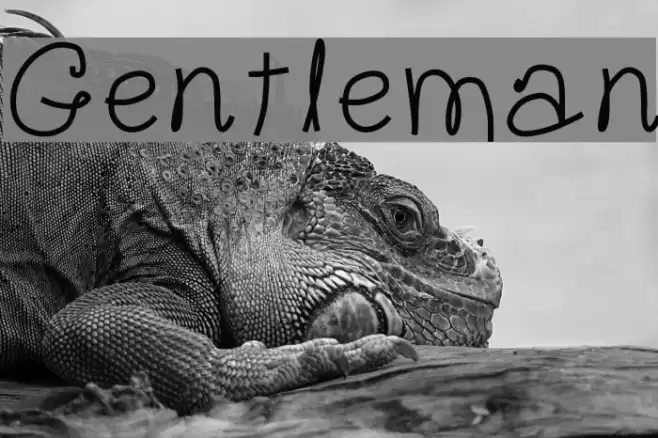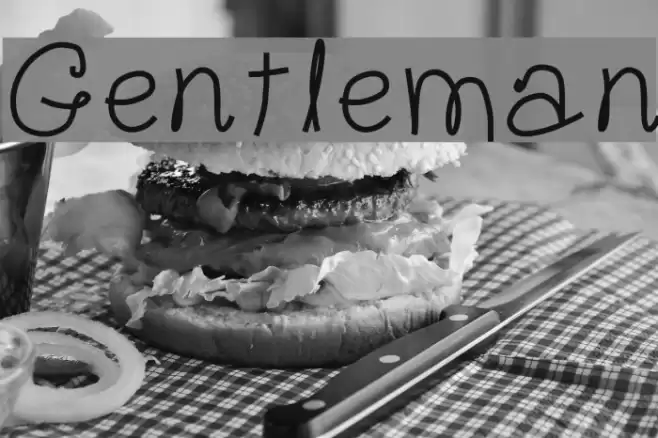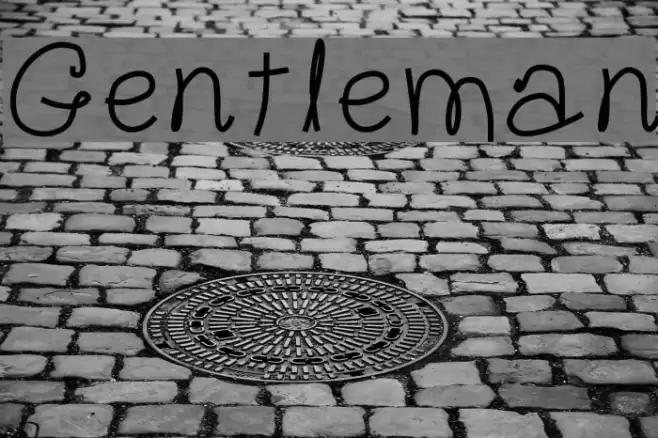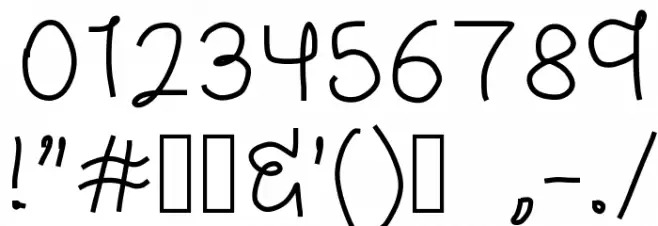
Gentleman Font
Gentleman Description
This playful and whimsical font features a hand-drawn style with unique, quirky elements. Each character is distinct, with some letters incorporating spiral motifs, adding a sense of fun and creativity. The strokes are uneven, giving it a casual, informal appearance. The font maintains a consistent flow, with a slight tilt in some characters, enhancing its dynamic feel. The numbers and special characters follow the same playful design, making it suitable for projects that require a touch of personality and charm.
A whimsical, hand-drawn font with playful, quirky elements and spiral motifs from Uncategorized fonts.
- Proposed Projects: Ideal for children's books, creative posters, playful branding, and informal invitations.
- Use Case: Headlines, Logos, Creative projects